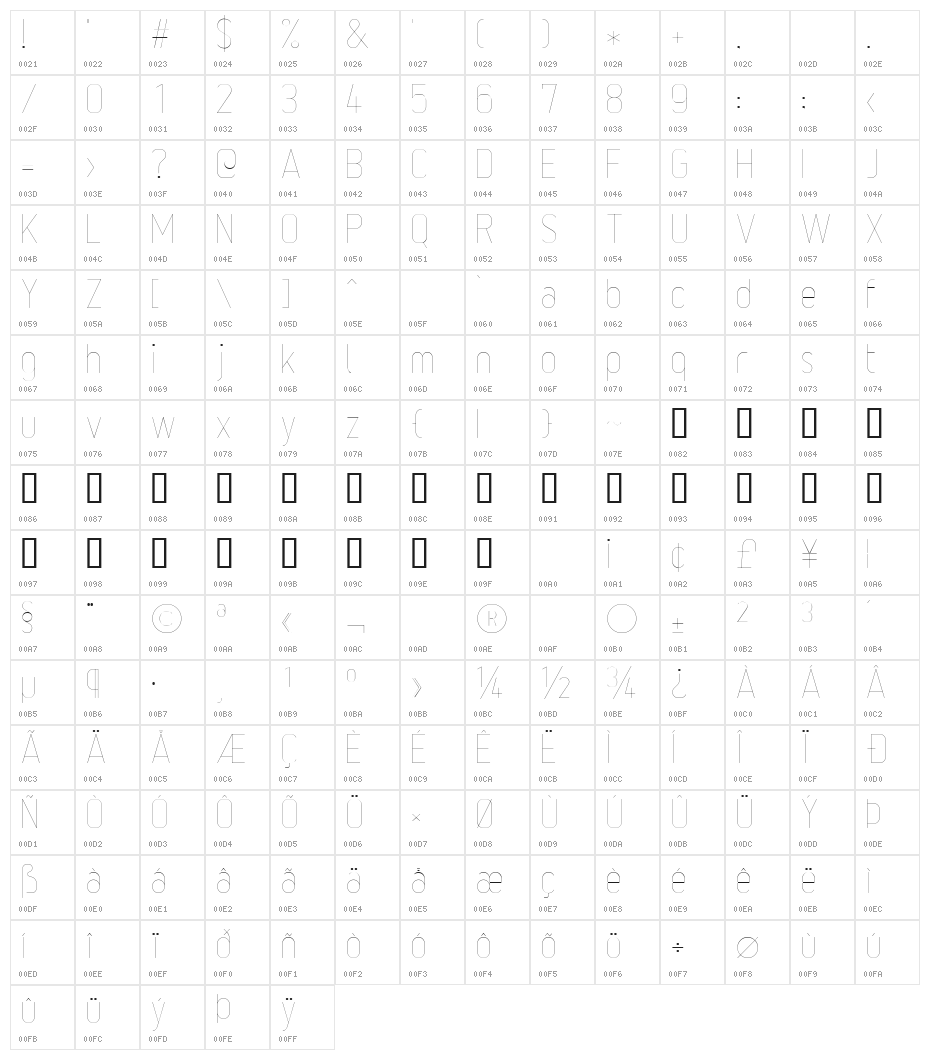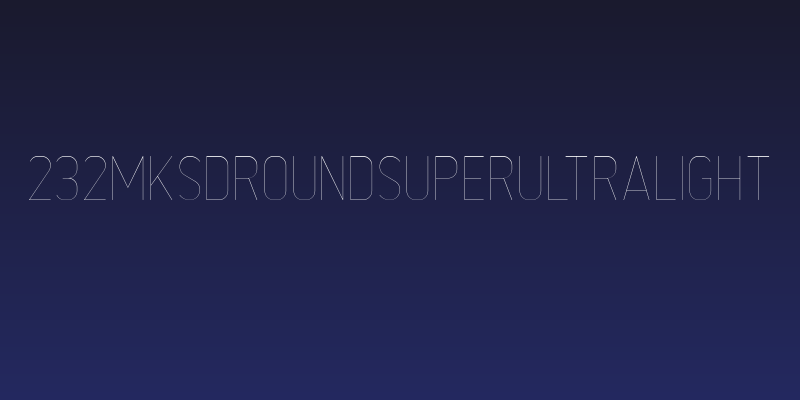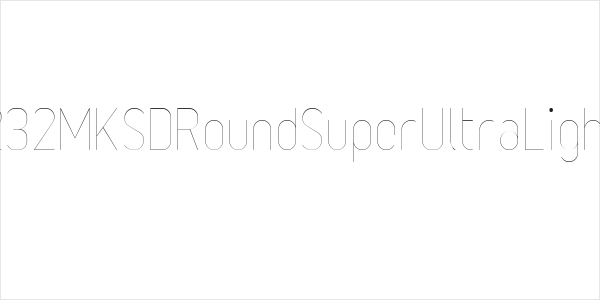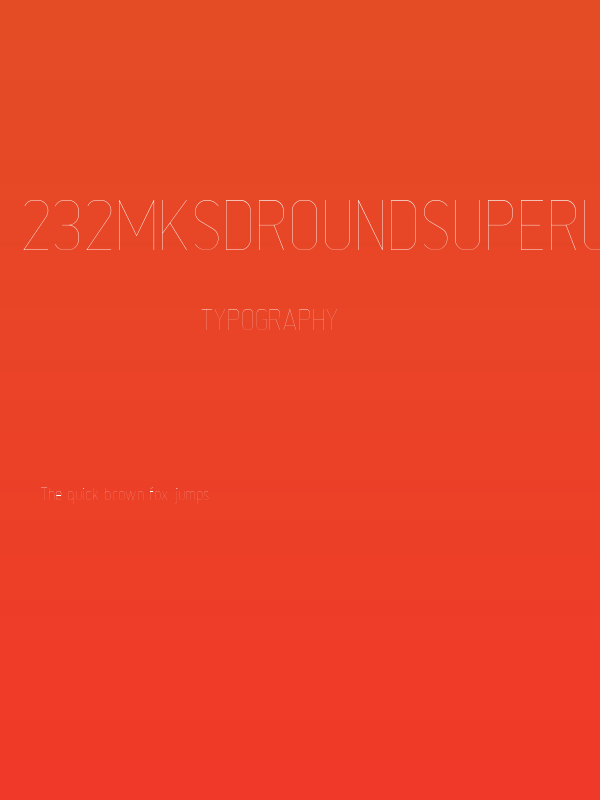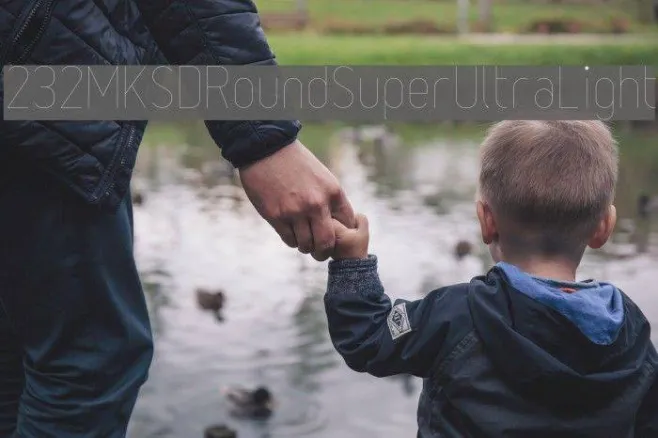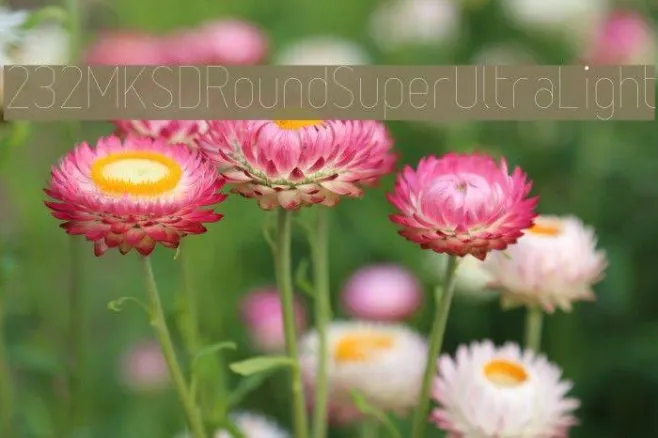
232MKSDRoundSuperUltraLight Font
232MKSDRoundSuperUltraLight Description
This font features a sleek, ultra-light design with a modern and minimalist aesthetic. The characters are constructed with thin, uniform lines that give it a clean and airy appearance. The uppercase and lowercase letters maintain a consistent height, contributing to a harmonious and balanced look. The numerals and special characters are crafted with the same attention to detail, ensuring readability and style. Its geometric shapes and rounded edges add a touch of elegance, making it suitable for contemporary design projects.
| Proposed Projects | Ideal for modern branding, minimalist posters, sleek website headers, and elegant invitations. |